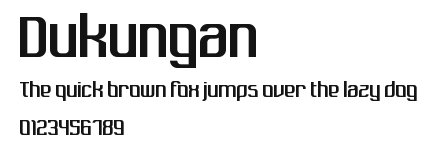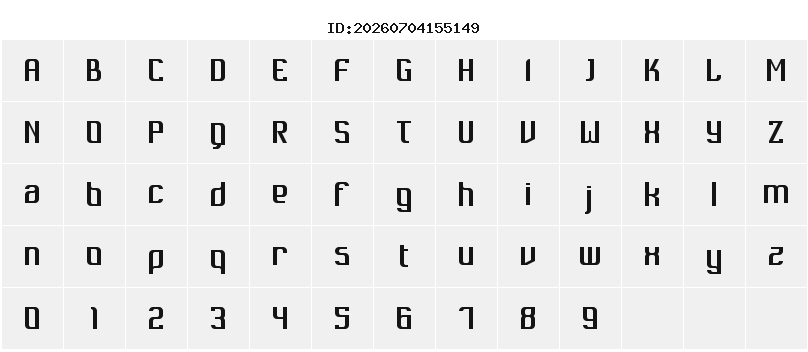
• Font Name: Dukungan
• Full Font Name: Dukungan Regular
• Designer: Adien Gunarta
• Description: ‚ÄúDukungan‚Äù was built with FontStruct
About Dukungan.ttf
Dukungan.ttf is a modern, elegant sans-serif font designed for ultimate readability and visual harmony. Perfect for branding, headlines, web design, and print materials.